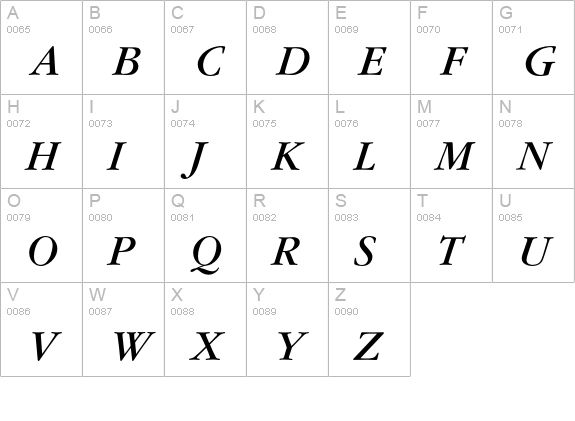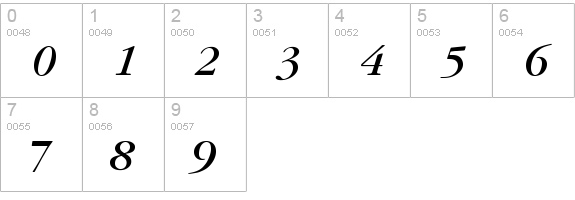
Garamond* Book Italic Font Details
Garamond* Book Italic is a comfortable, highly readable, italic variant in the Garamond* typeface family \xE2\x80\x94 well suited to long-form body text, articles, and editorial content.
Garamond Book Italic font embodies elegance and sophistication with its graceful slanted forms and delicate serifs. The italic style of this classic typeface adds a touch of flair and sophistication to any design project. Its subtle curves and balanced proportions create a timeless and refined aesthetic that is perfect for conveying a sense of sophistication and professionalism. The Garamond Book Italic font is versatile and can be utilized in various design applications, from editorial pieces to branding materials. Its readability and legibility make it an ideal choice for long blocks of text, such as books, magazines, and academic publications. The italicized characters add a touch of emphasis and style, making it an excellent choice for headings, subheadings, and quotations. Best of all, Garamond Book Italic font is available for free download at FontsMarket.com. This means that designers and creatives can easily access and incorporate this elegant typeface into their projects without any cost. Whether you are working on a personal project or a professional assignment, Garamond Book Italic font is a valuable resource that adds a touch of sophistication and refinement to your designs.